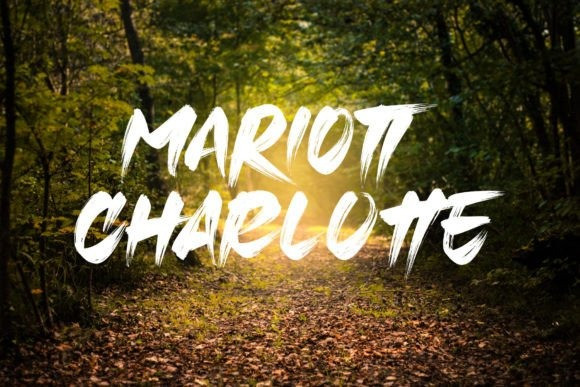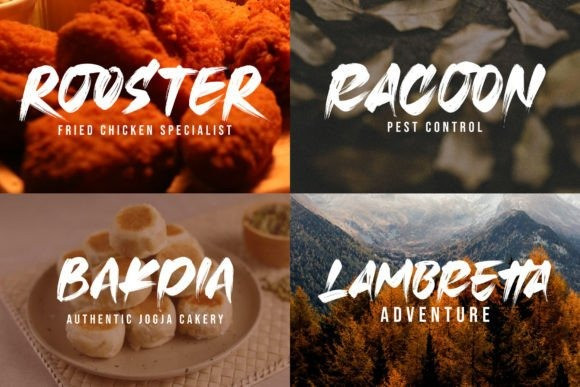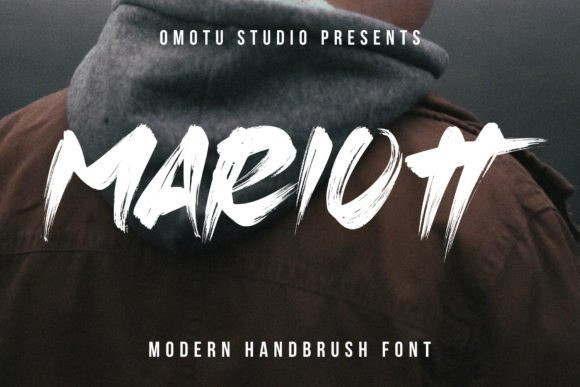
Mariott Font
Mariott Font! A handwritten display brush font, all caps. MARIOTT font is suitable for branding, logotype, apparel, T-shirt, Hoodie, product packaging, quotes, flyer, poster, book covers, advertising, etc.